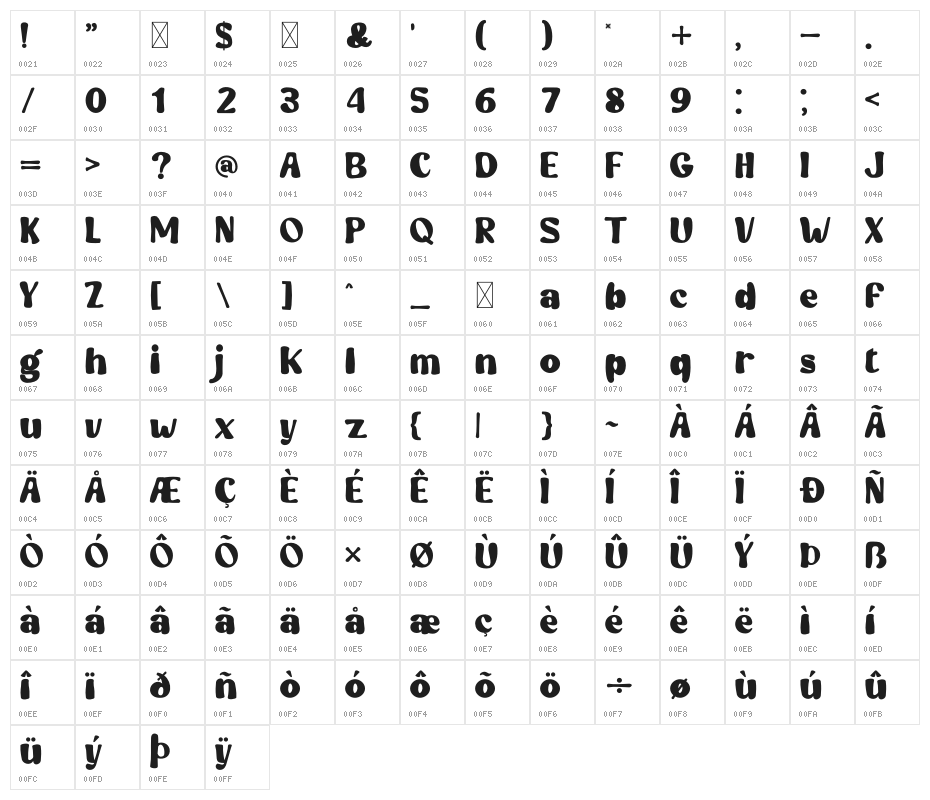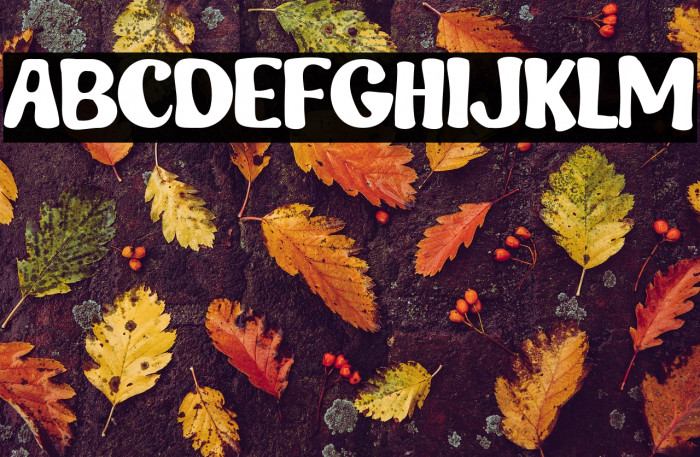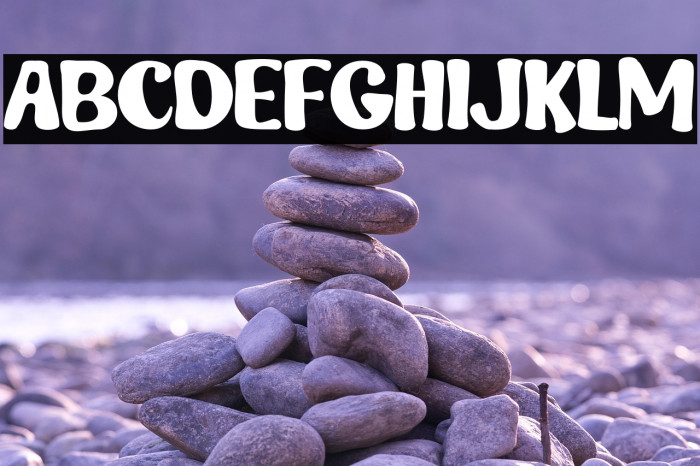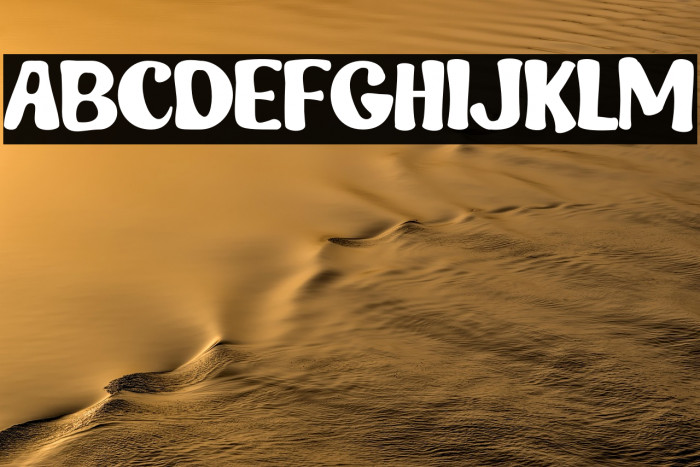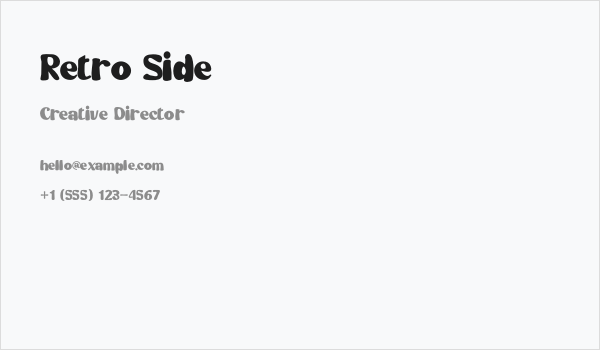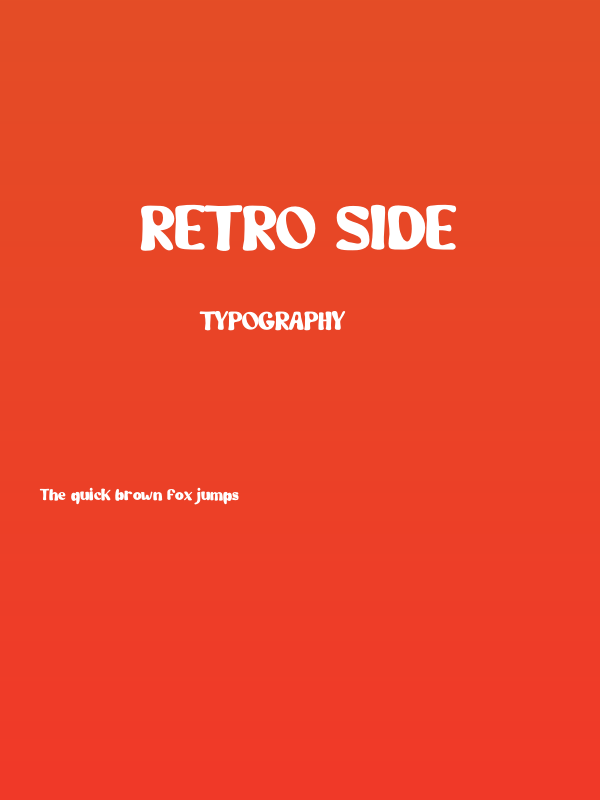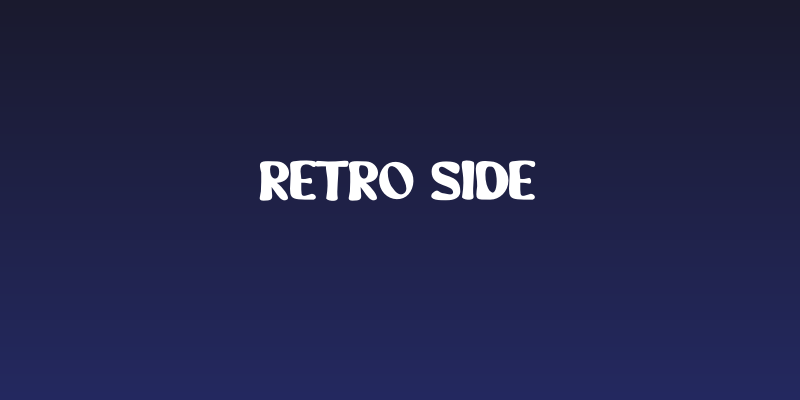
Retro Side Font
Retro Side Description
This font features a bold and playful design with a distinctly retro vibe. The characters are rounded and thick, giving them a friendly and approachable appearance. The uppercase and lowercase letters maintain a consistent style, with smooth curves and a slightly exaggerated width that enhances their visibility. The numbers and special characters follow the same design principles, ensuring uniformity across all glyphs. This font's unique style is reminiscent of vintage signage and advertisements, making it ideal for projects that aim to evoke nostalgia or a sense of fun.
| Width | Expanded |
| Overall Style | Vintage |
| Proposed Projects | Ideal for vintage-themed posters, playful branding, retro advertisements, and creative packaging designs. |